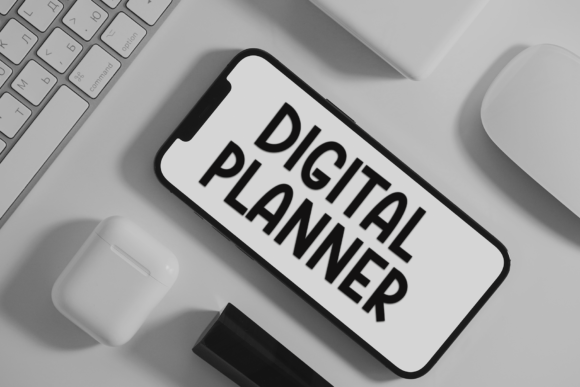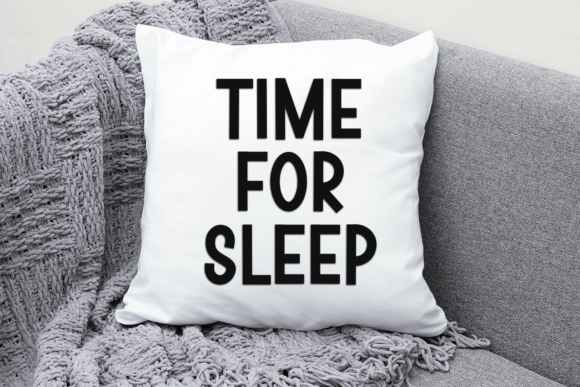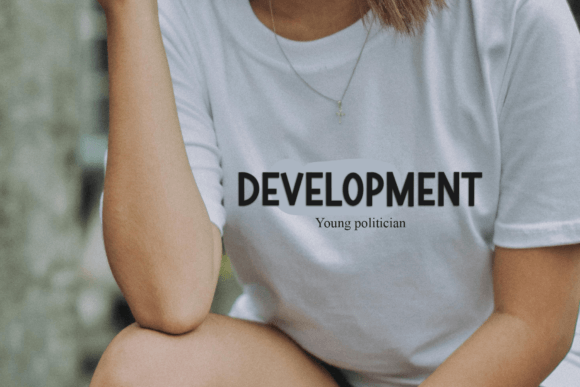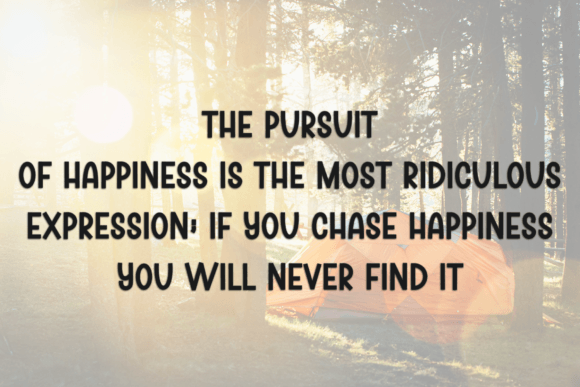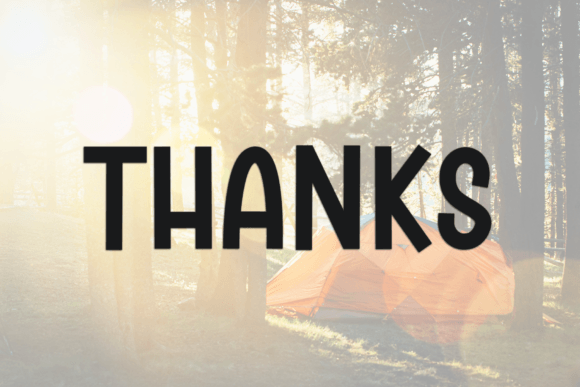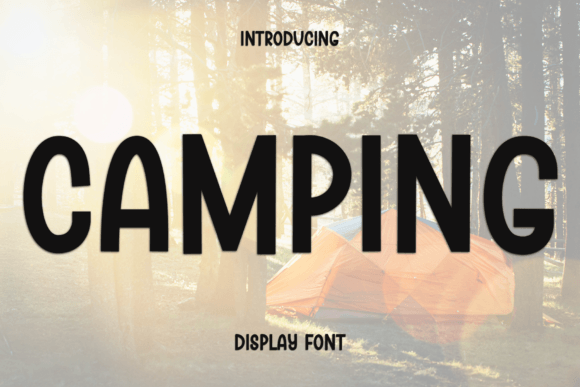
Camping Font: A Festive and Happy Typeface for Holiday Designs
Are you looking for a font that captures the spirit of the holiday season? Do you want to add a touch of charm to your designs? Look no further than the Camping Font! This decorative typeface is perfect for greeting cards, gift labels, and holiday-themed projects. With its unique flair and nostalgic atmosphere, it’s sure to bring a smile to your customers’ faces.
What makes Camping Font special?
Camping Font is a festive and happy typeface that is designed to evoke the feeling of the holiday season. Its decorative elements and unique flair make it stand out from other fonts, and its PUA (Private Use Area) coding makes it easy to access all the amazing glyphs and ligatures. This means that you can easily add special characters and swashes to your designs, giving them an extra touch of personality.
Perfect for Holiday Designs
Camping Font is perfect for a variety of holiday designs, including:
- Greeting cards: Whether you’re creating Christmas cards, Hanukkah cards, or holiday-themed invitations, Camping Font is the perfect choice.
- Gift labels: Add a personal touch to your gifts with beautifully designed labels featuring Camping Font.
- Holiday-themed projects: From holiday-themed party invitations to festive packaging, Camping Font is the perfect font for any holiday project.
Why Choose Camping Font?
There are many reasons why you should choose Camping Font for your holiday designs. Here are just a few:
- Unique and festive: Camping Font is a one-of-a-kind typeface that is sure to stand out in your designs.
- Easy to use: With its PUA coding, Camping Font is easy to use and allows you to access all the amazing glyphs and ligatures.
- Versatile: Camping Font can be used for a variety of holiday designs, from greeting cards to gift labels.
- Nostalgic atmosphere: Camping Font has a nostalgic atmosphere that is sure to bring a smile to your customers’ faces.
Tips for Using Camping Font
Here are a few tips for using Camping Font in your designs:
- Experiment with different sizes and colors: Camping Font looks great in a variety of sizes and colors, so don’t be afraid to experiment.
- Use it with other fonts: Camping Font pairs well with other fonts, so try using it with a simple sans-serif font for a contrasting look.
- Take advantage of glyphs and ligatures: With its PUA coding, Camping Font allows you to access a wide range of glyphs and ligatures. Take advantage of these to add special touches to your designs.
Key Features of Camping Font
- Festive and happy typeface
- Decorative elements and unique flair
- PUA coded for easy access to glyphs and ligatures
- Perfect for greeting cards, gift labels, and holiday-themed projects
- Nostalgic atmosphere